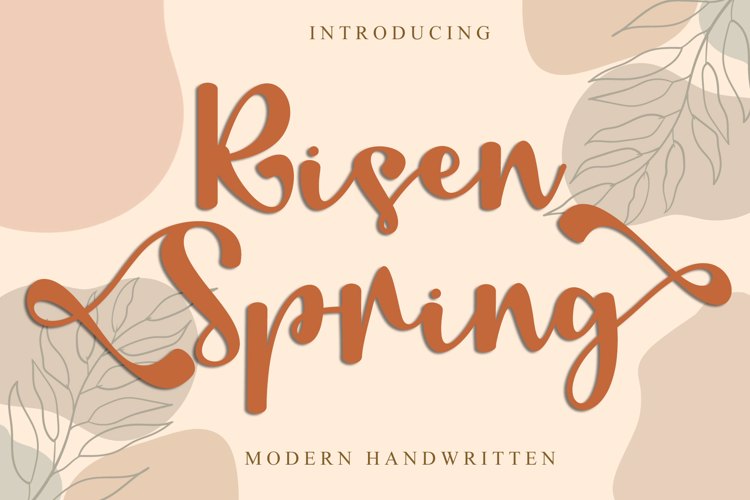
Risen Spring - Font
About Risen Spring - Font
Risen Spring is a modern handwriting made with a spring theme. Risen Spring is an elegant, beautiful, and aesthetic script writing.
Risen Spring is very suitable for greeting cards, T-shirt designs, invitations, wedding invitations, etc.
Let's celebrate spring with the beauty of Risen Spring!